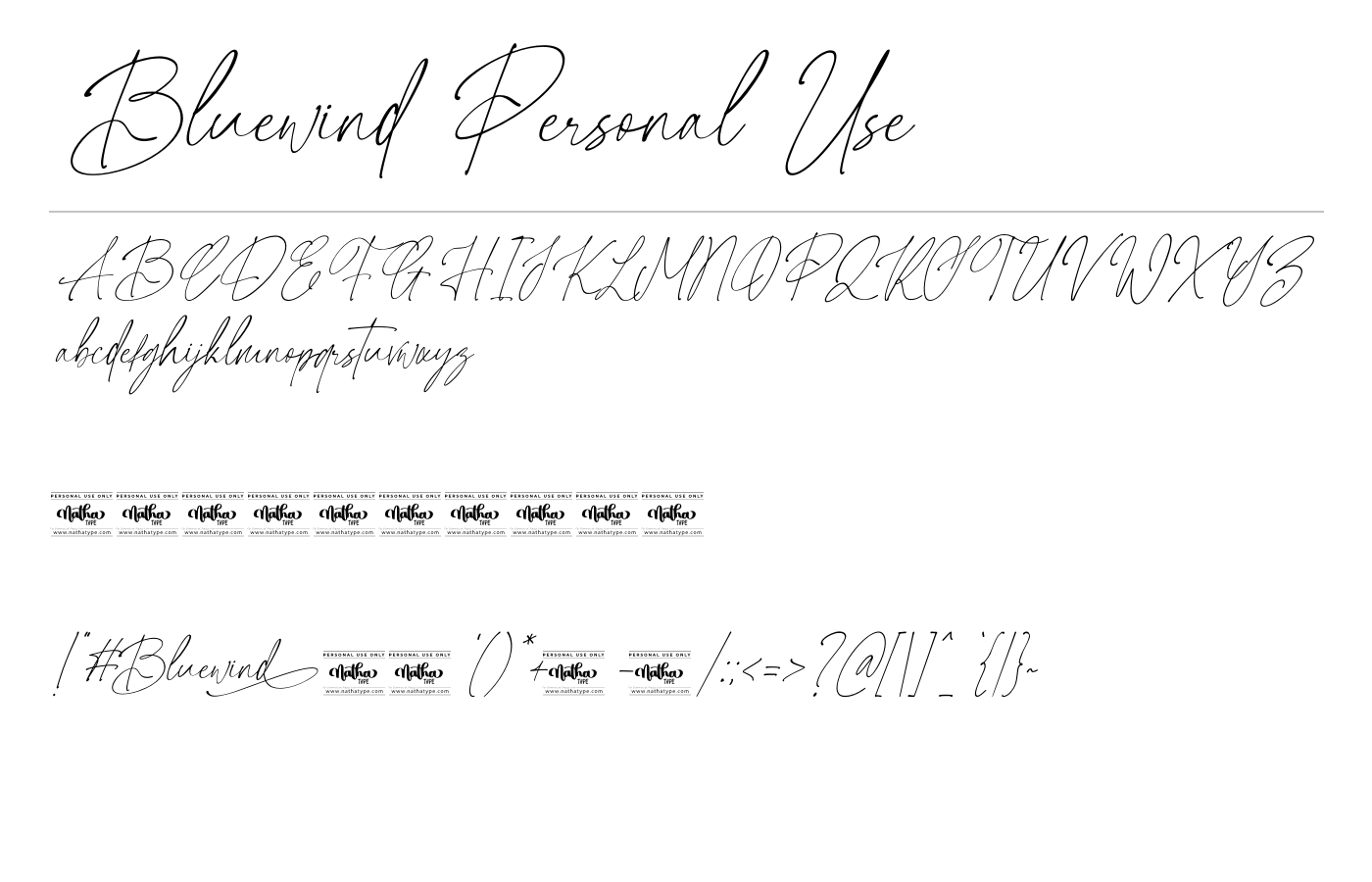
Bluewind Personal Use is a delicate and elegant handwritten script font characterized by its thin, flowing strokes and natural, casual style. Its slender letterforms and graceful connections give it a sophisticated yet approachable feel, making it ideal for personal branding, invitations, and creative projects that require a touch of refined personality. This font works best in designs where a light, airy, and handwritten aesthetic can add charm and softness without overwhelming the message.
Bluewind Personal Use Font
About Bluewind Personal Use Font
| Font family | Bluewind Personal Use Font |